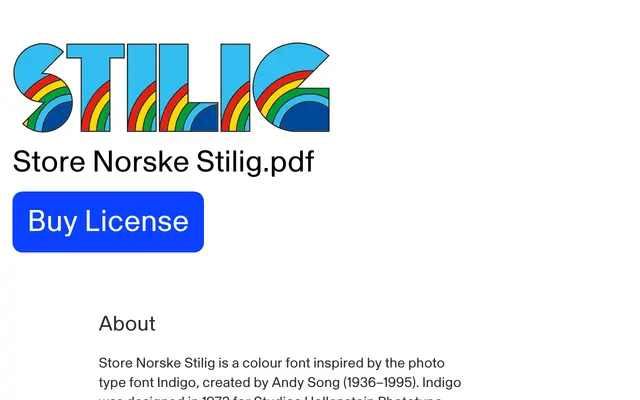
Store Norske Stilig
Store Norske Skriftkompani · Arve Båtevik
A colour font designed by Arve Båtevik, inspired by Andy Song's 1972 phototype face Indigo, offered in a vibrant layered colour style and four distinct monochrome variants.
Based on Indigo, a photographic display face created by Andy Song for Studios Hollenstein Phototypo in Paris, Stilig brings that heritage into a contemporary colour font format with a layered, chromatic palette. The four monochrome styles — Dark, Light, Solid and Open — each present the letterforms differently, from bold filled forms with a white rainbow accent to bare outlines, giving designers flexible options for silk screen and riso printing. Character coverage is compact, spanning uppercase, lowercase, selected accented Latin characters and basic punctuation, suited to Western European and Nordic languages.
A display typeface with layered, chromatic construction inspired by phototype display lettering; classified as display due to its purely decorative, expressive character and lack of text weights.